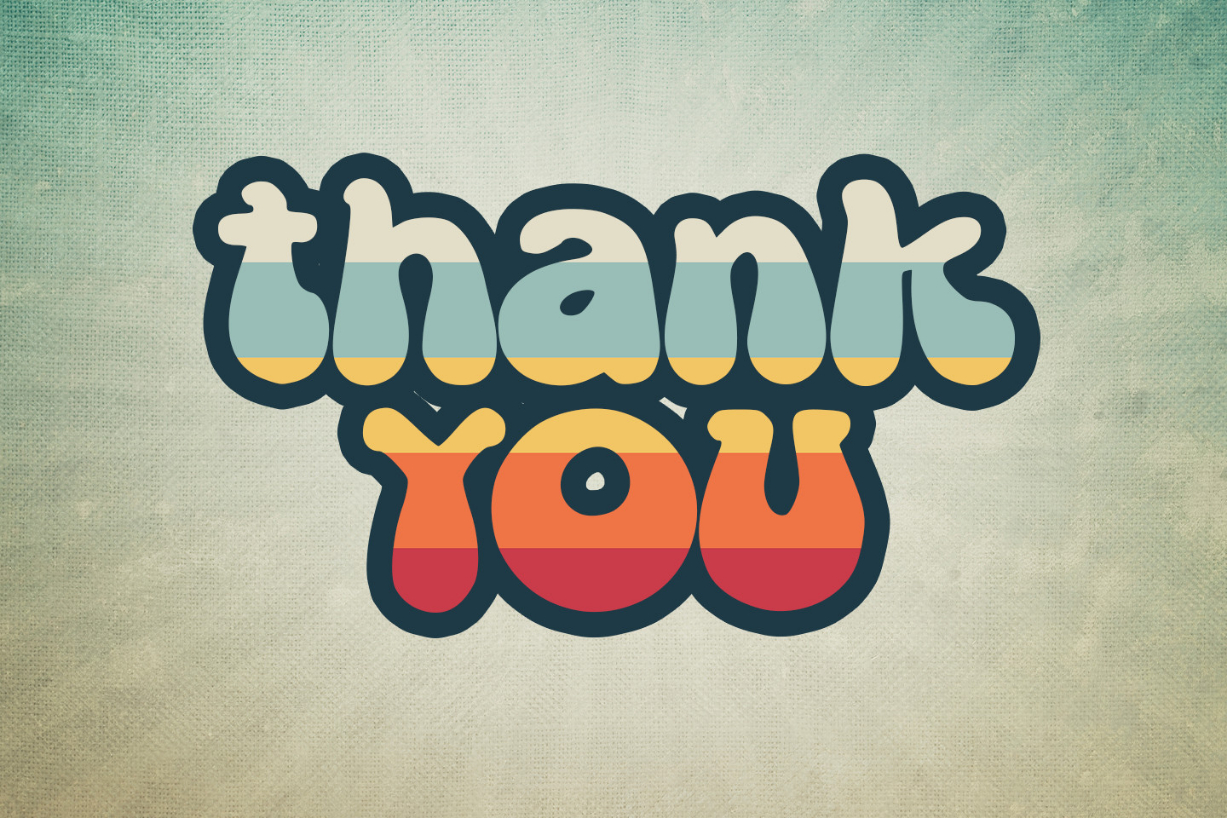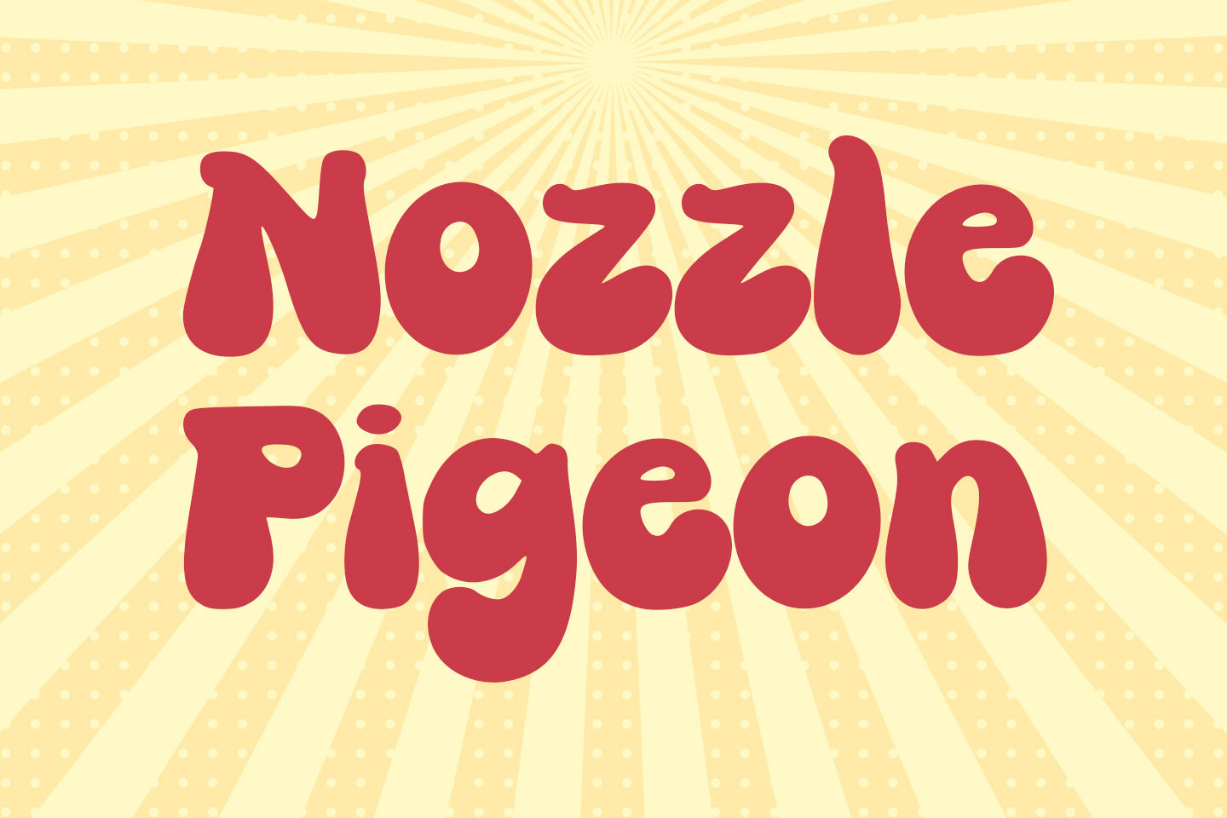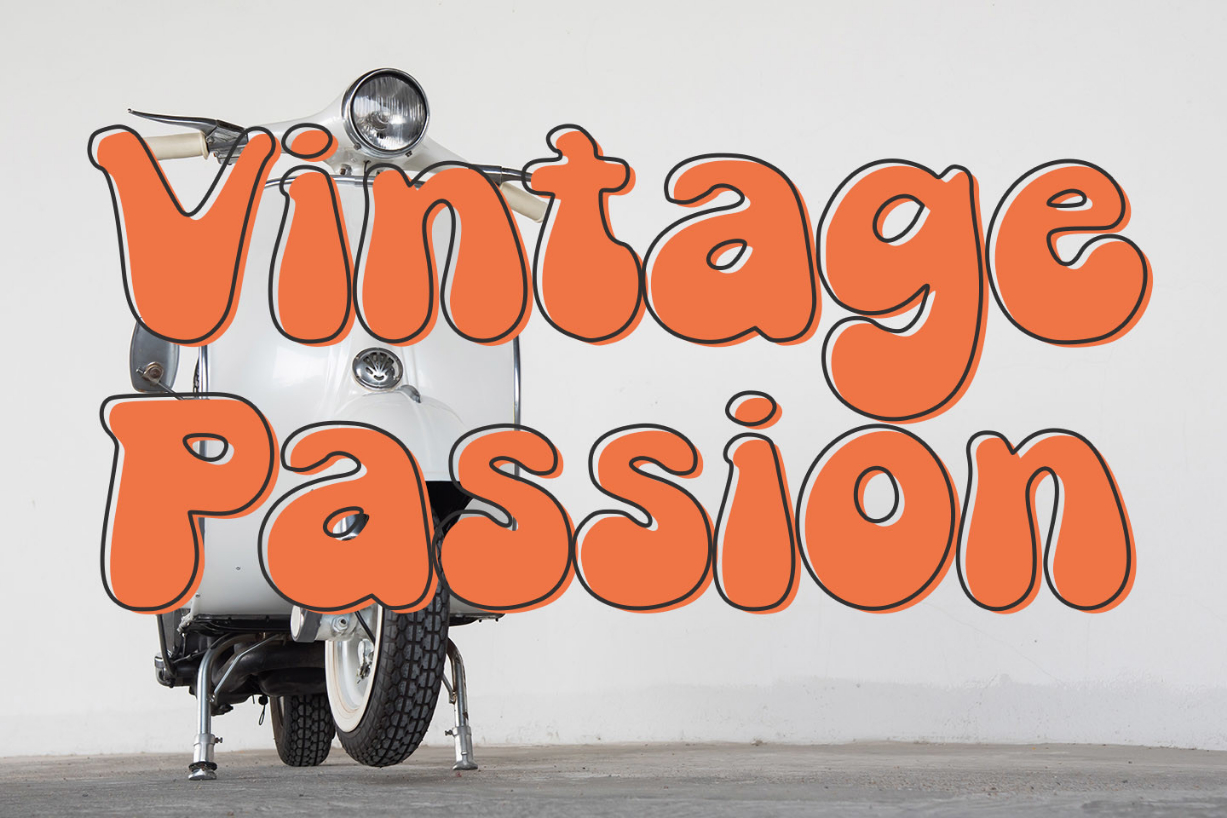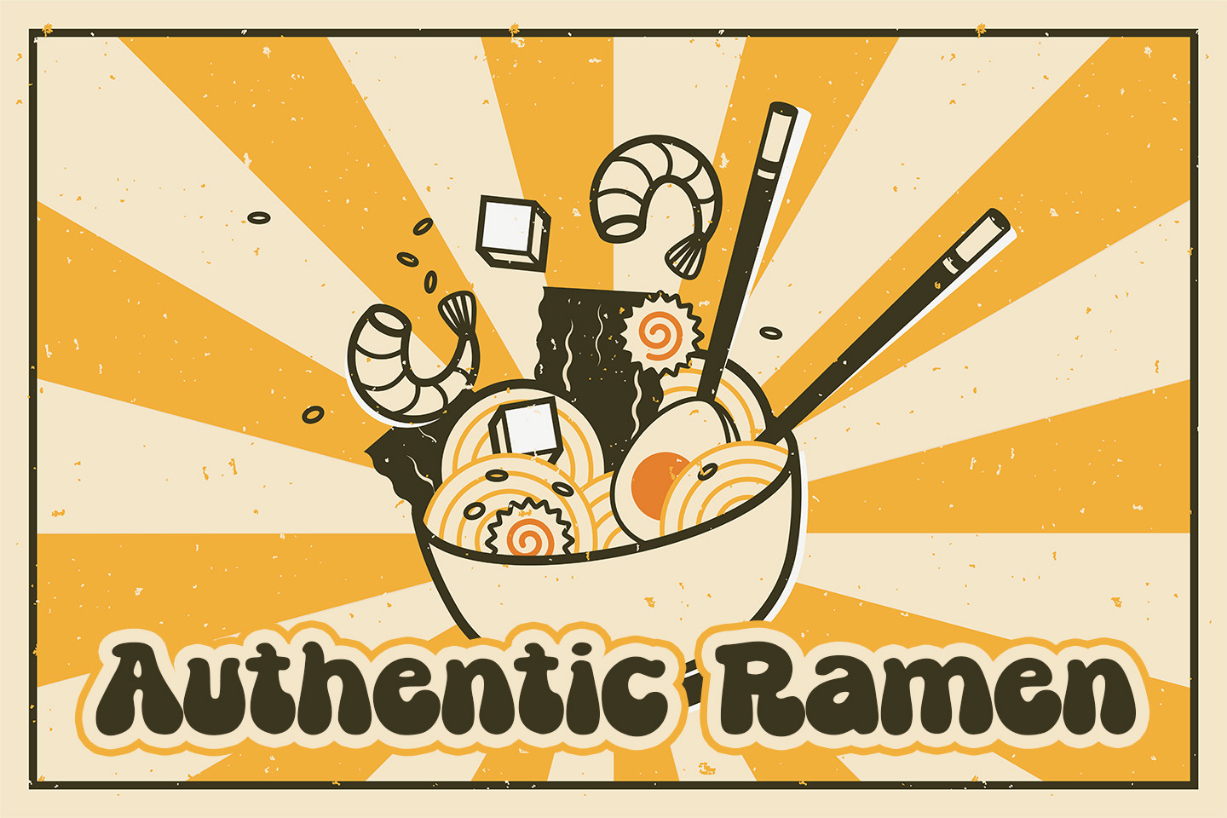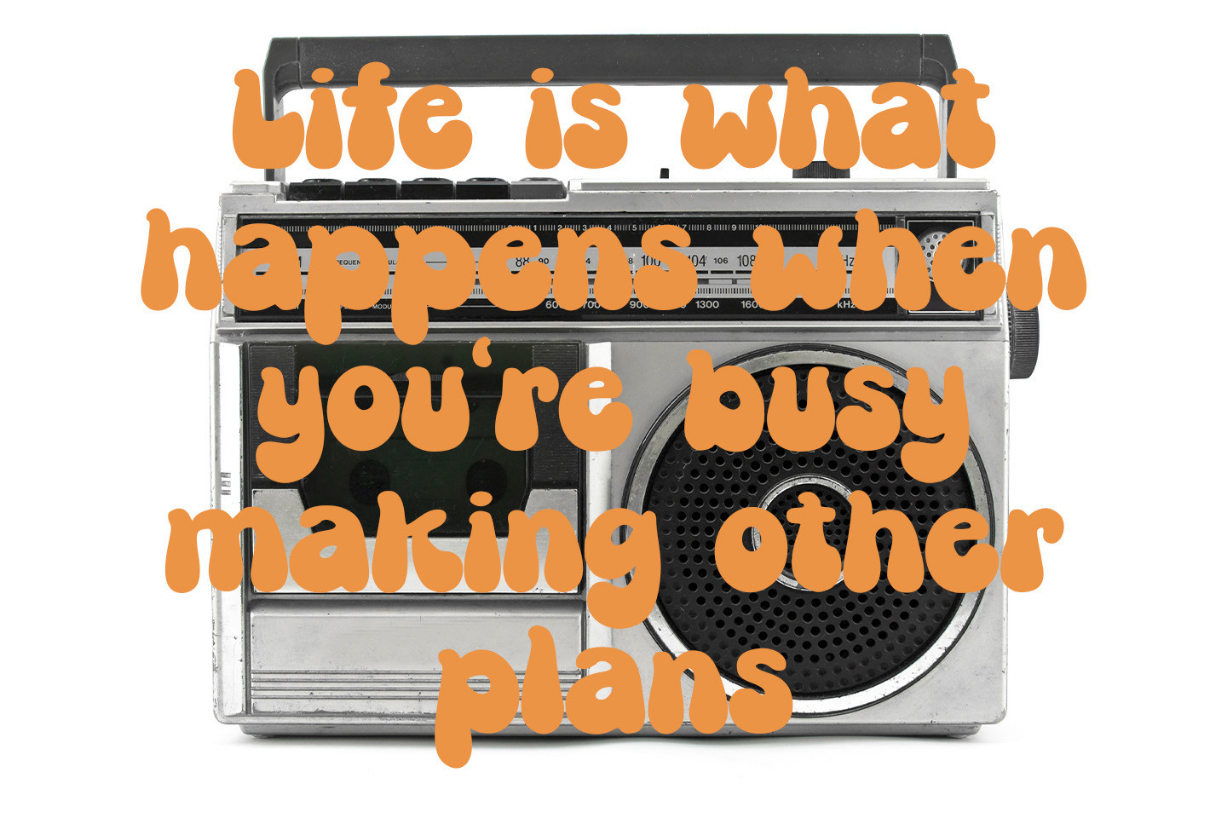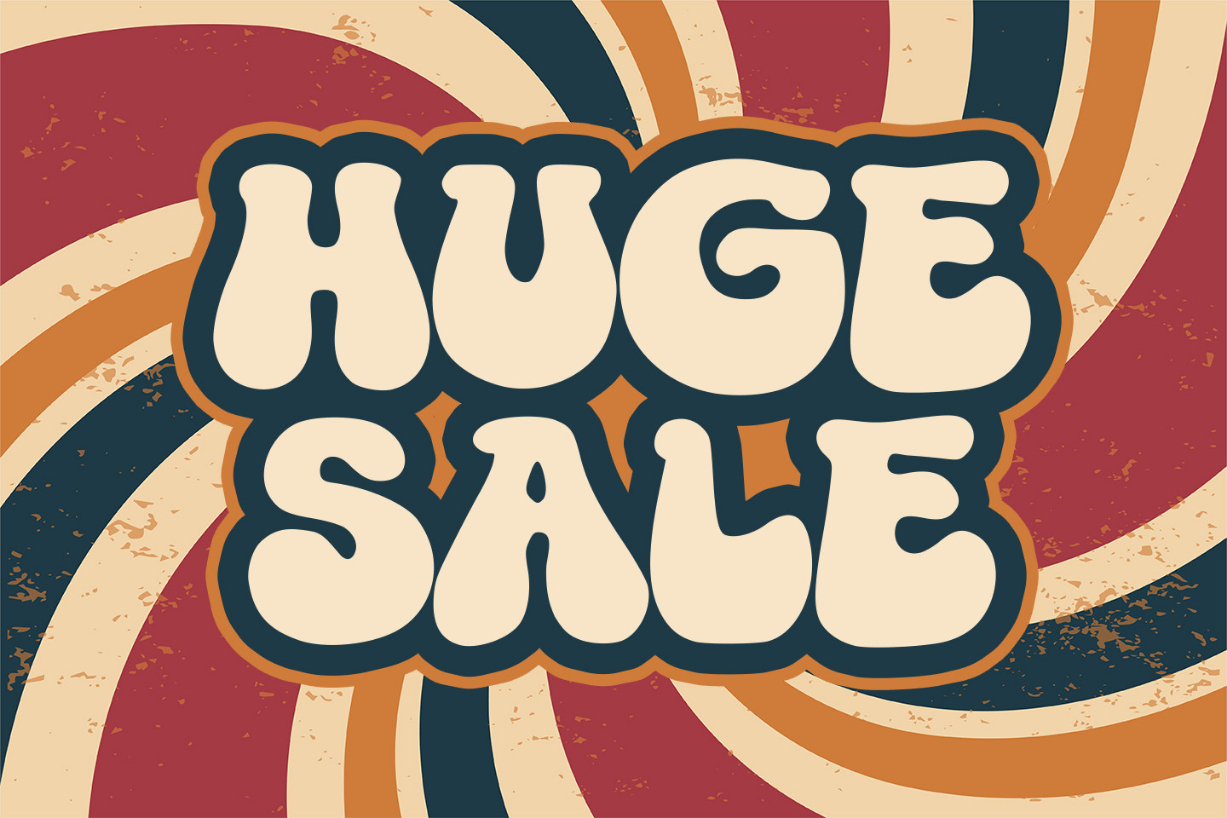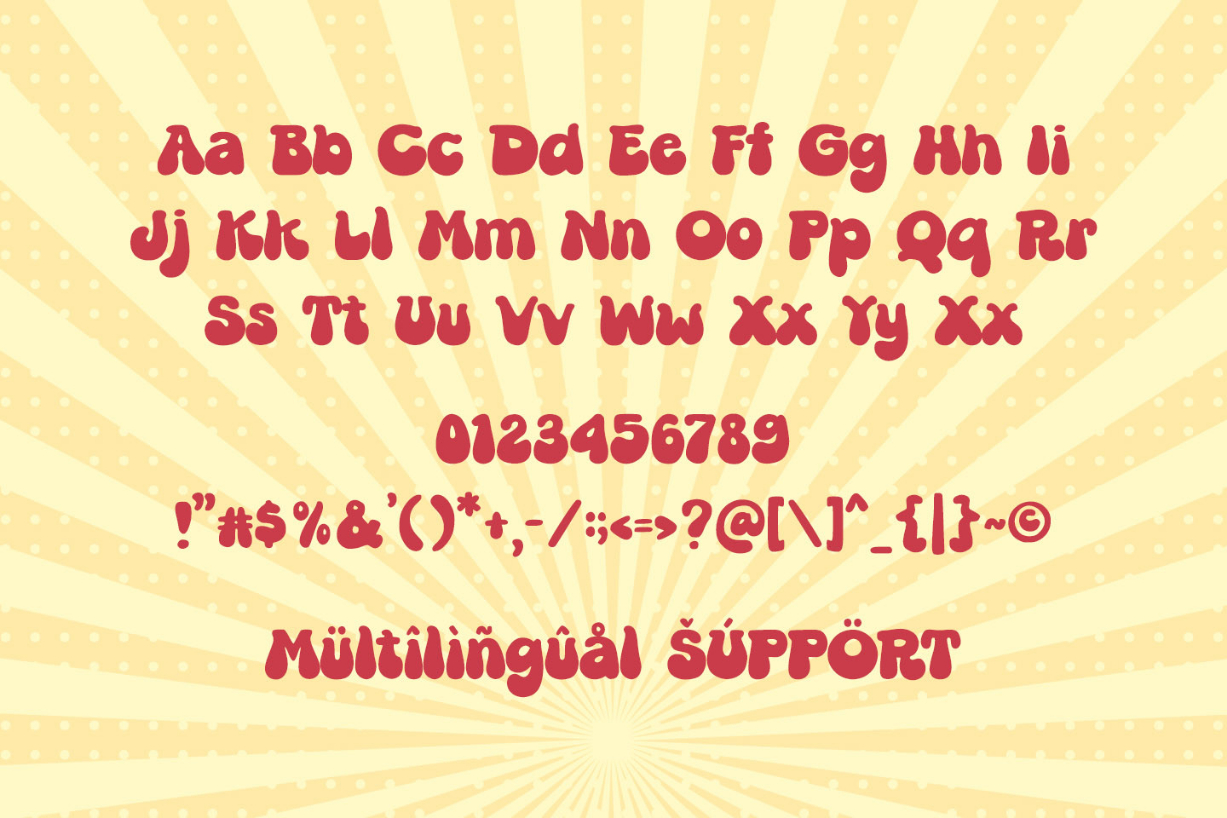
Beach Cake Font
BEACH CAKE
– groovy sans serif-
BEACH CAKE is retro sans serif in cute touch.
It is great for branding, quotes, logos, t-shirt designs, tote bag designs, cards, banners, social media, and other projects that need groovy style.